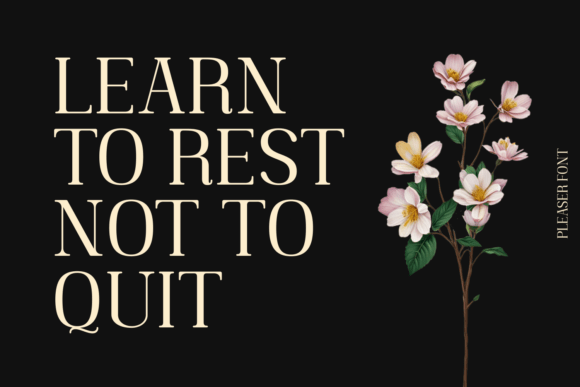
Pleaser Font
Pleaser is a sophisticated serif typeface with eye-catching alternate characters and unique ligatures. It perfectly combines playfulness and refinement, making it ideal for brand identities, logo design, and artistic print projects. Whether used for headlines or decorative titles, Pleaser ensures your typography stands out with flair.